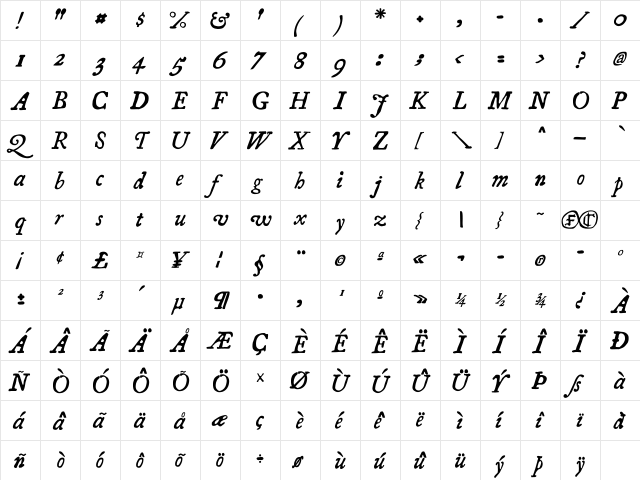
Essays1743 Italic
| Designer | Based on the typeface in a 1743 English translation of the essays of Montaigne. PostScript/TrueType font designed by John Stracke. |
Design Context for Essays1743 Typeface
Essays1743 takes a measured approach to typography — its balanced proportions and neutral character make it a reliable workhorse for both digital and print work. The dynamic lean of this cut emphasises speed and emphasis in any layout.